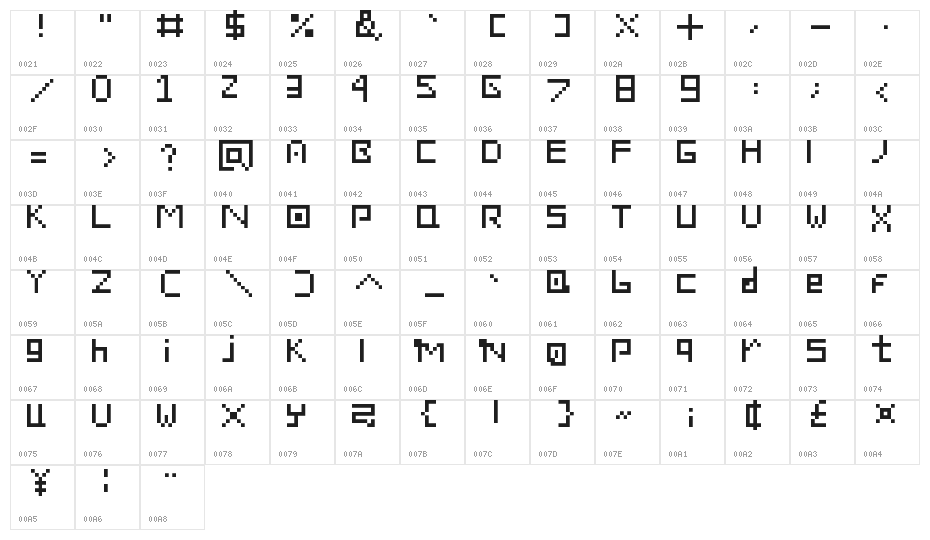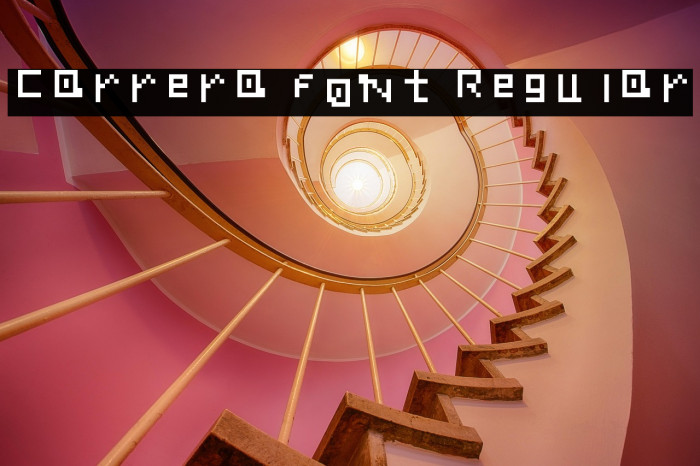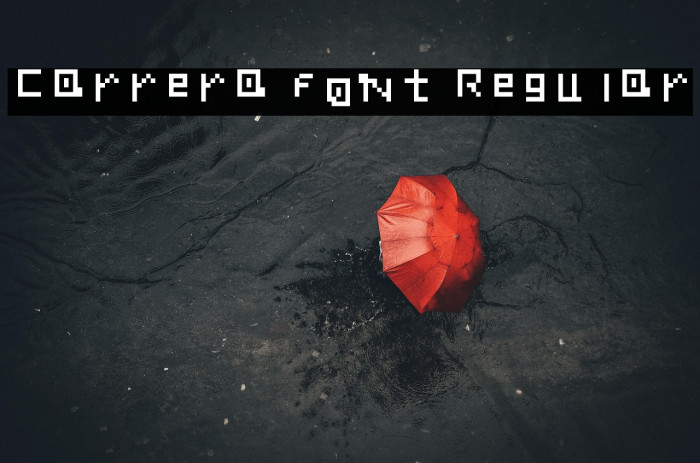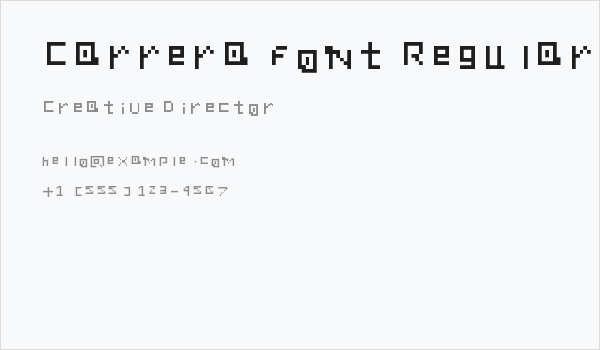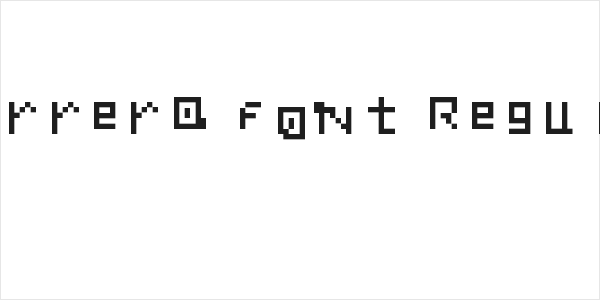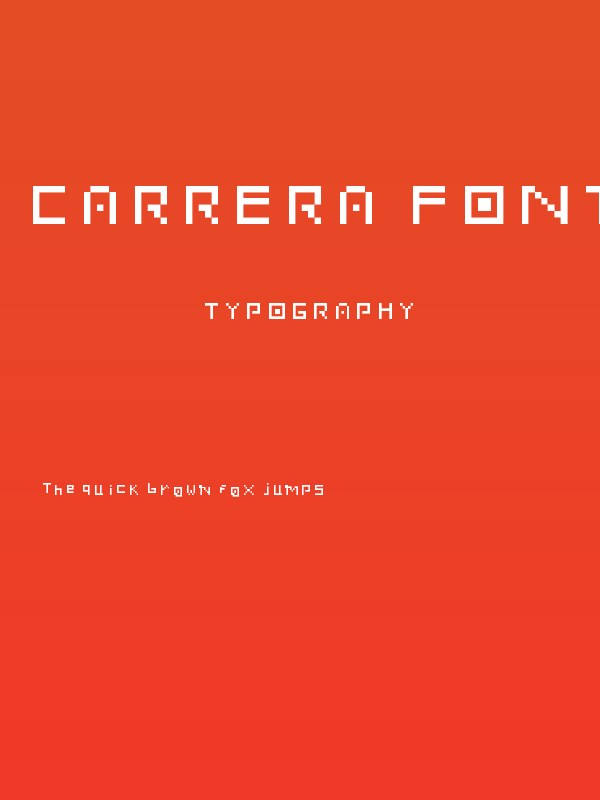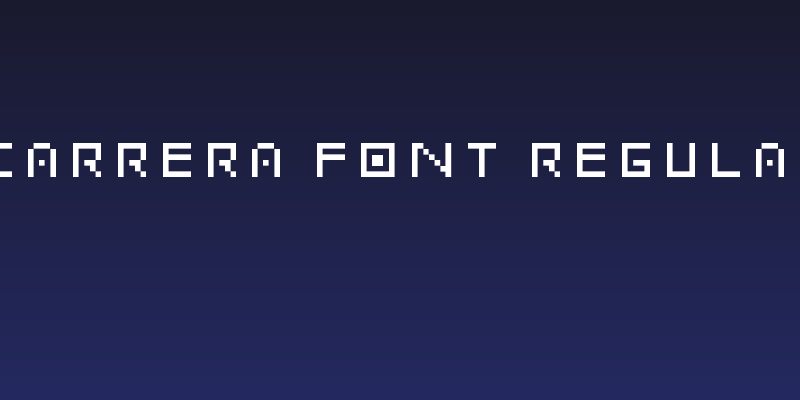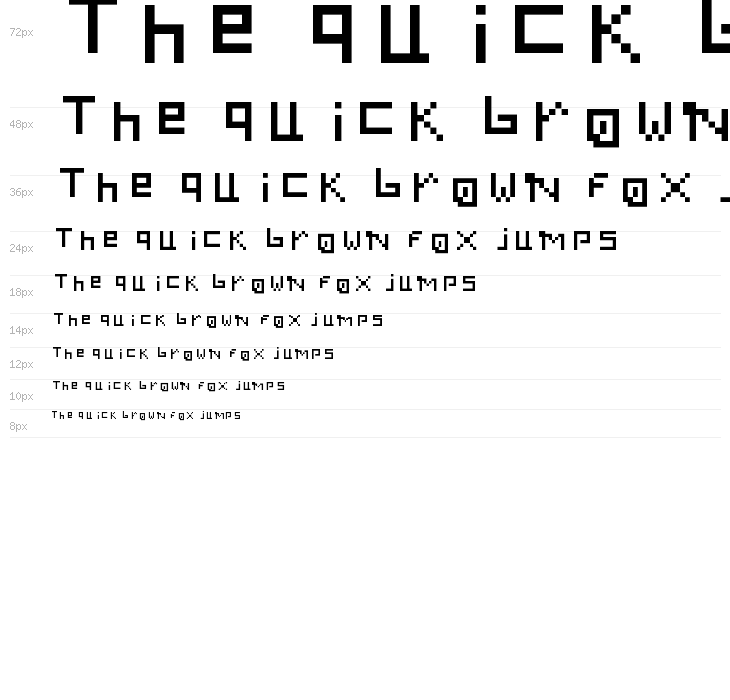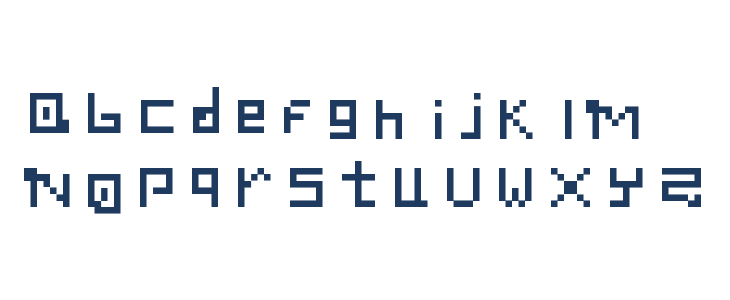
Carrera font Regular Font
Carrera font Regular Description
This font exhibits a pixelated, blocky design reminiscent of early digital displays and retro video games. Each character is constructed with a grid-like appearance, emphasizing a uniform, geometric structure. The uppercase and lowercase letters maintain a consistent height, contributing to a monospaced feel. The numerals and special characters follow the same pixelated style, ensuring a cohesive look across all glyphs. This design choice gives the font a nostalgic, tech-inspired aesthetic, making it ideal for projects that aim to evoke a sense of digital nostalgia or retro gaming culture.
| Overall Style | Retro, Digital |
| Use Case | Headlines, Logos, Digital Art |
| Proposed Projects | Ideal for retro video game designs, tech-themed posters, digital art projects, and any creative work that seeks to capture a nostalgic digital feel. |